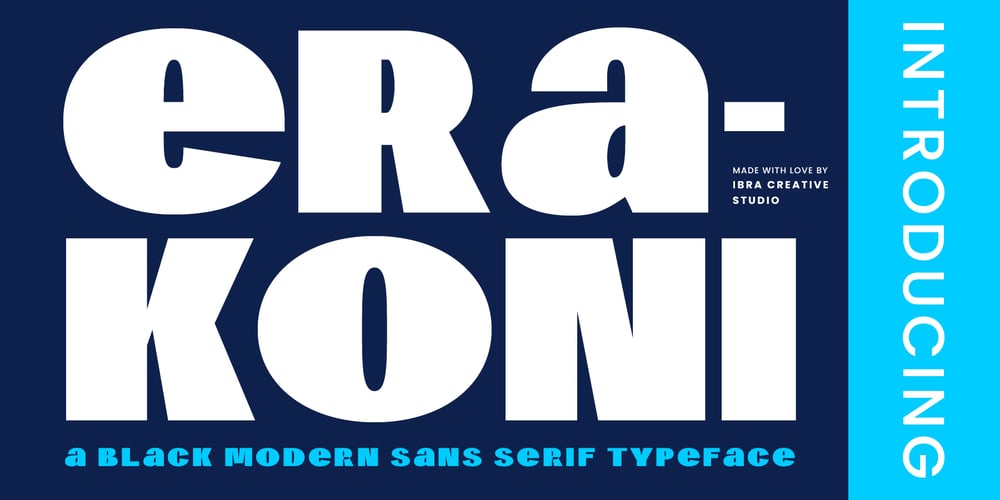
Erakoni
Erakoni font
Erakoni Font Family was designed by Roisatul Azizah and published by IbraCreative. Erakoni contains 1 styles and family package options. Erakoni – A Black Modern Sans Serif TypefaceErakoni, a sleek black modern sans serif typeface, epitomizes contemporary elegance with its clean lines and bold presence. Each letter in Erakoni commands attention with its precise geometric forms, making a striking statement in any design. Whether used for headlines, branding, or editorial layouts, Erakoni exudes sophistication and professionalism, offering a versatile solution for modern typographic needs. Its timeless appeal and sharp aesthetic make it an indispensable choice for designers seeking to convey a sense of refinement and authority in their projects.Erakoni is perfect for branding projects, logo, wedding designs, social media posts, advertisements, product packaging, product designs, label, photography, watermark, invitation, stationery, game, fashion and any projects.Fonts include multilingual support for; Afrikaans, Albanian, Czech, Danish, Dutch, English, Estonian, Finnish, French, German, Hungarian, Italian, Latvian, Lithuanian, Norwegian, Polish, Portuguese, Slovak, Slovenian, Spanish, Swedish.